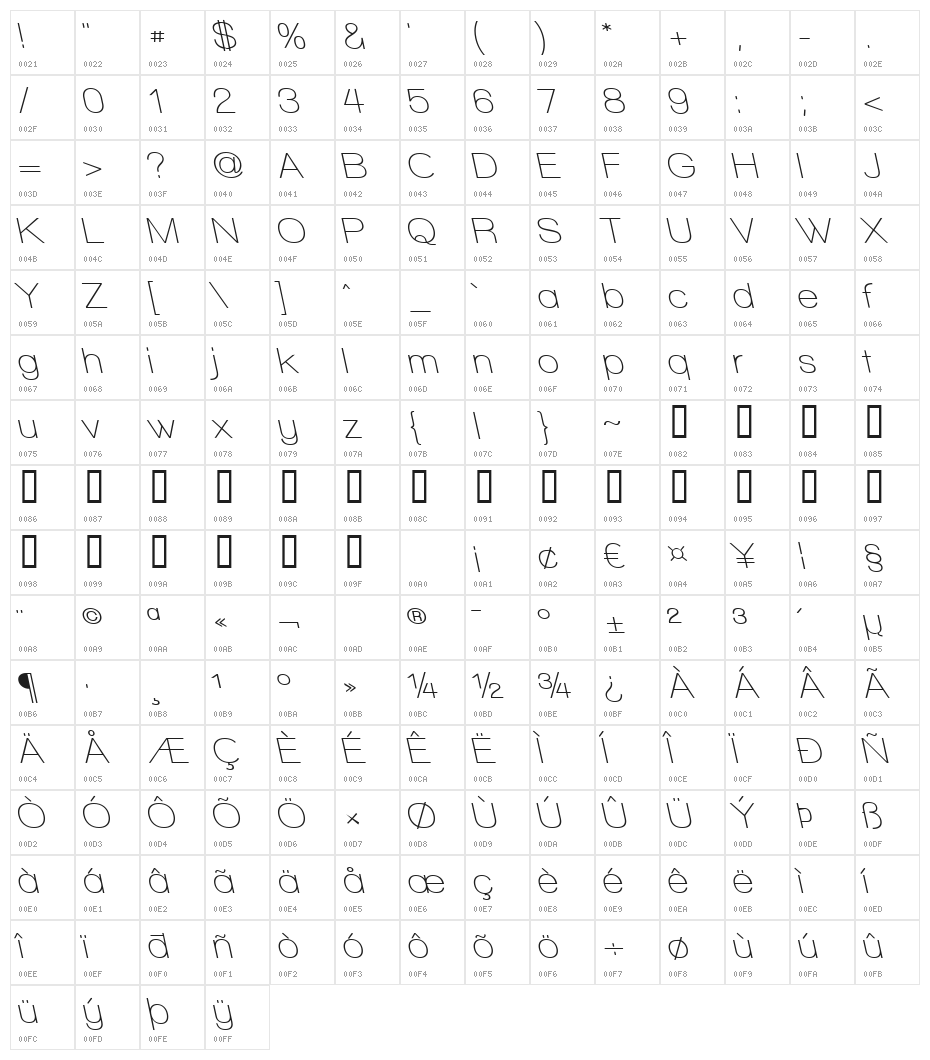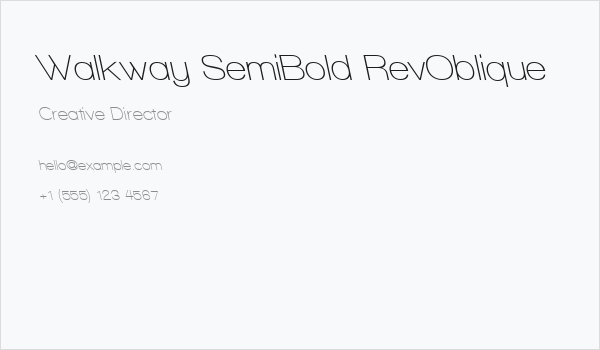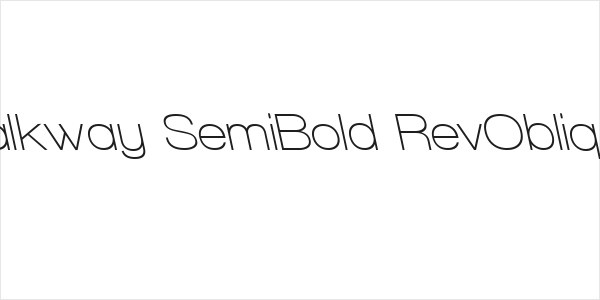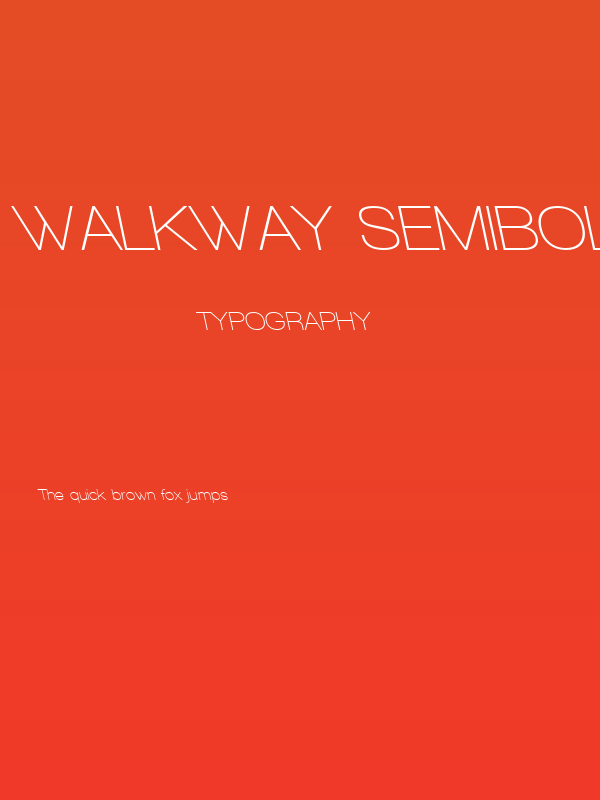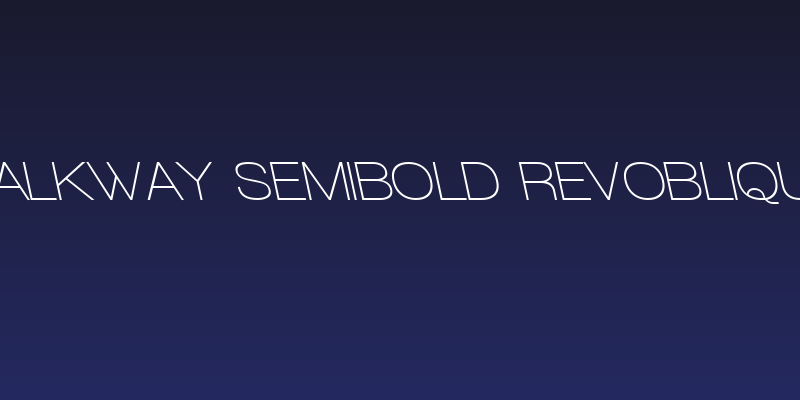
Walkway SemiBold RevOblique Font
Walkway SemiBold RevOblique Description
This font features a sleek, modern design with a semi-bold weight and a reverse oblique style, giving it a unique slant that adds dynamism to the text. The characters are clean and geometric, with consistent stroke widths that provide a uniform appearance. The uppercase and lowercase letters maintain a harmonious balance, while the numerals and special characters are designed with the same attention to detail. The overall look is contemporary and minimalistic, making it suitable for a variety of design applications.
| Proposed Projects | Ideal for branding, advertising, modern web design, and editorial layouts. |